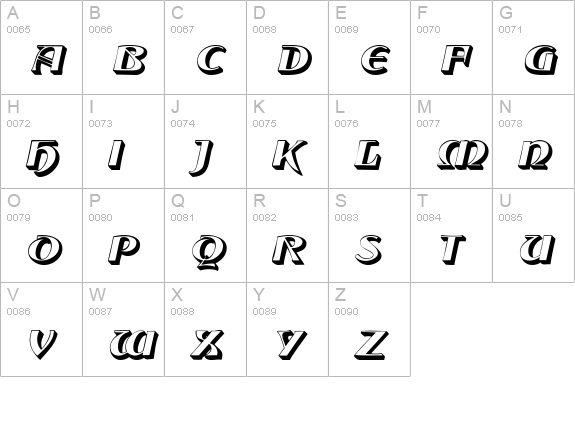
Brunswyk Italic is a distinctive, italic variant in the Brunswyk typeface family \xE2\x80\x94 well suited to design and typography projects.
Brunswyk Italic is a stylish and elegant font that exudes sophistication and modernity. With its sleek and flowing curves, this font is perfect for adding a touch of class to any design project. The italicized version of Brunswyk adds a dynamic and energetic flair to text, making it stand out beautifully. What makes Brunswyk Italic even more appealing is that it is completely free to download at FontsMarket.com. This means that you can elevate your designs without any extra cost. Whether you're working on a website, a logo, or a print project, Brunswyk Italic is sure to make a statement and captivate your audience. Download Brunswyk Italic today from FontsMarket.com and take your design projects to the next level with this stunning and versatile font.